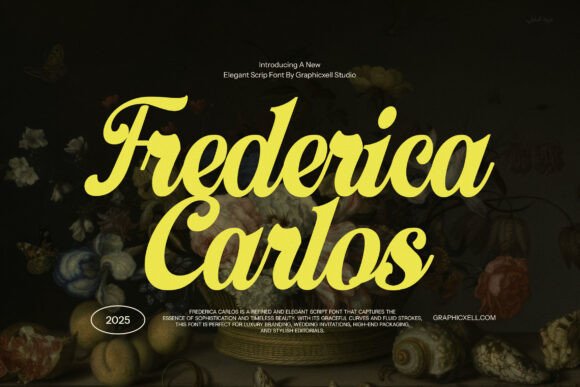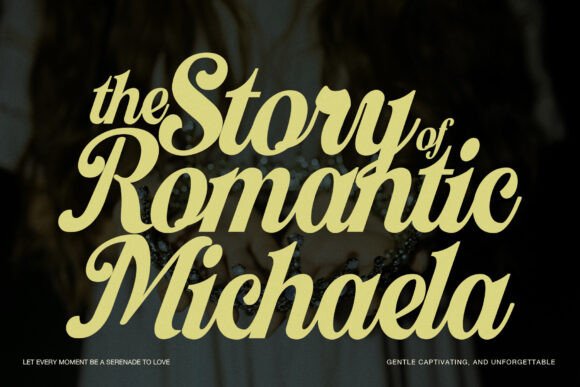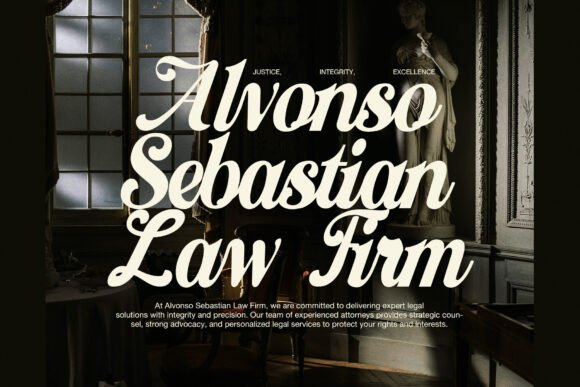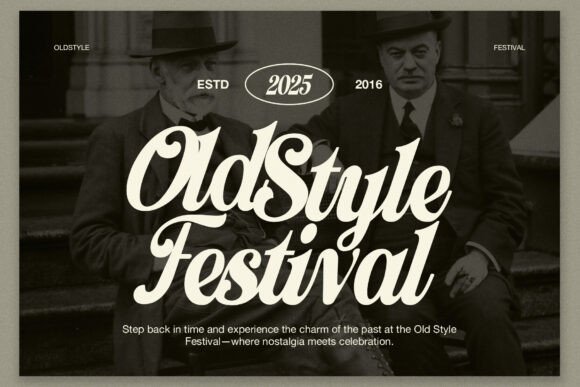
Frederica Carlos Font
About the Frederica Carlos Font
Introducing the Frederica Carlos Font, a beautifully crafted typeface designed to elevate your creative projects. Frederica Elegant Script Font is a timeless blend of sophistication and charm, designed to bring an exquisite touch to every project. With its fluid strokes, graceful curves, and luxurious calligraphic alternates, Frederica elevates the art of script typography into a truly refined visual experience. This typeface captures the essence of modern elegance while honoring classic hand-lettering traditions—making it the perfect choice for designers who seek both beauty and versatility.
Ideal for wedding invitations, branding identities, logo designs, and high-end packaging, Frederica embodies a romantic yet contemporary spirit. Each letter is thoughtfully crafted with stylish ligatures and multiple alternates, giving you the flexibility to create a truly custom and polished look. Whether you’re designing a luxury fashion label, a music album cover, or an elegant business card, Frederica adapts effortlessly across digital and print mediums.
Its delicate yet expressive forms also shine in magazines, social media graphics, Canva templates, event posters, and website headers—anywhere you want to make a bold yet graceful impression. Perfect for use with Adobe Illustrator, Photoshop, and Canva, Frederica ensures seamless usability for both beginners and experienced creatives.
Let your typography speak with elegance. Frederica Elegant Script Font isn’t just a typeface—it’s a statement of style, ideal for designs that deserve a touch of sophistication, charm, and personality.
Frederica Carlos Font Usage Examples
Frederica Carlos Font Example